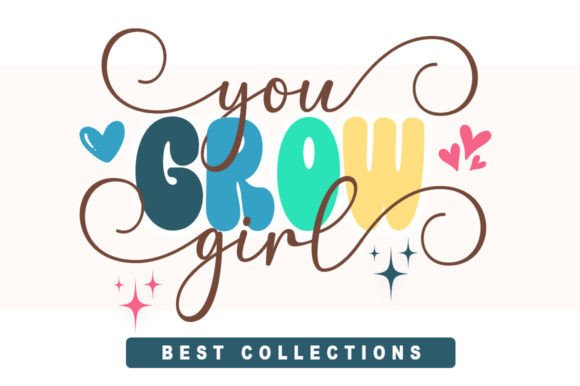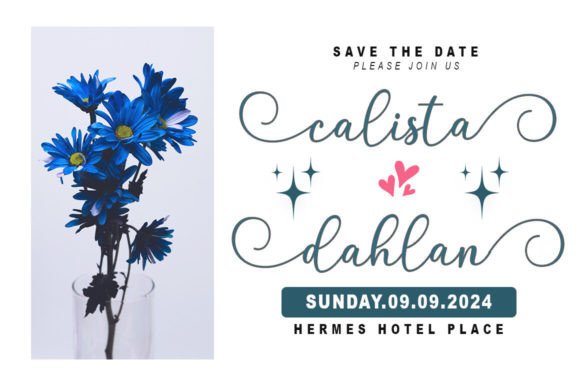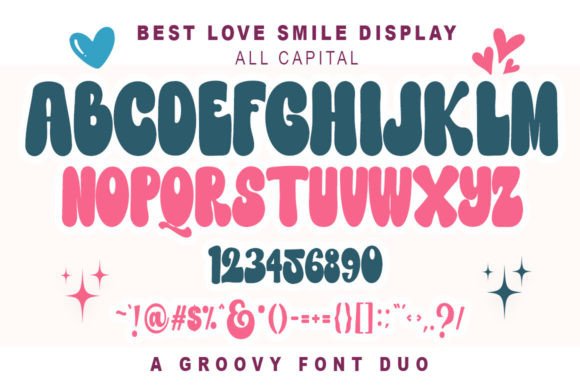
Best Love Smile Duo Font
Best Love Smile Duo is a cool retro duo font (appearance and script). It’s perfect for any hippie design that needs a fun look and is guaranteed to make an impact. This font is PUA coded, which means you can access all the glyphs and swashes easily!